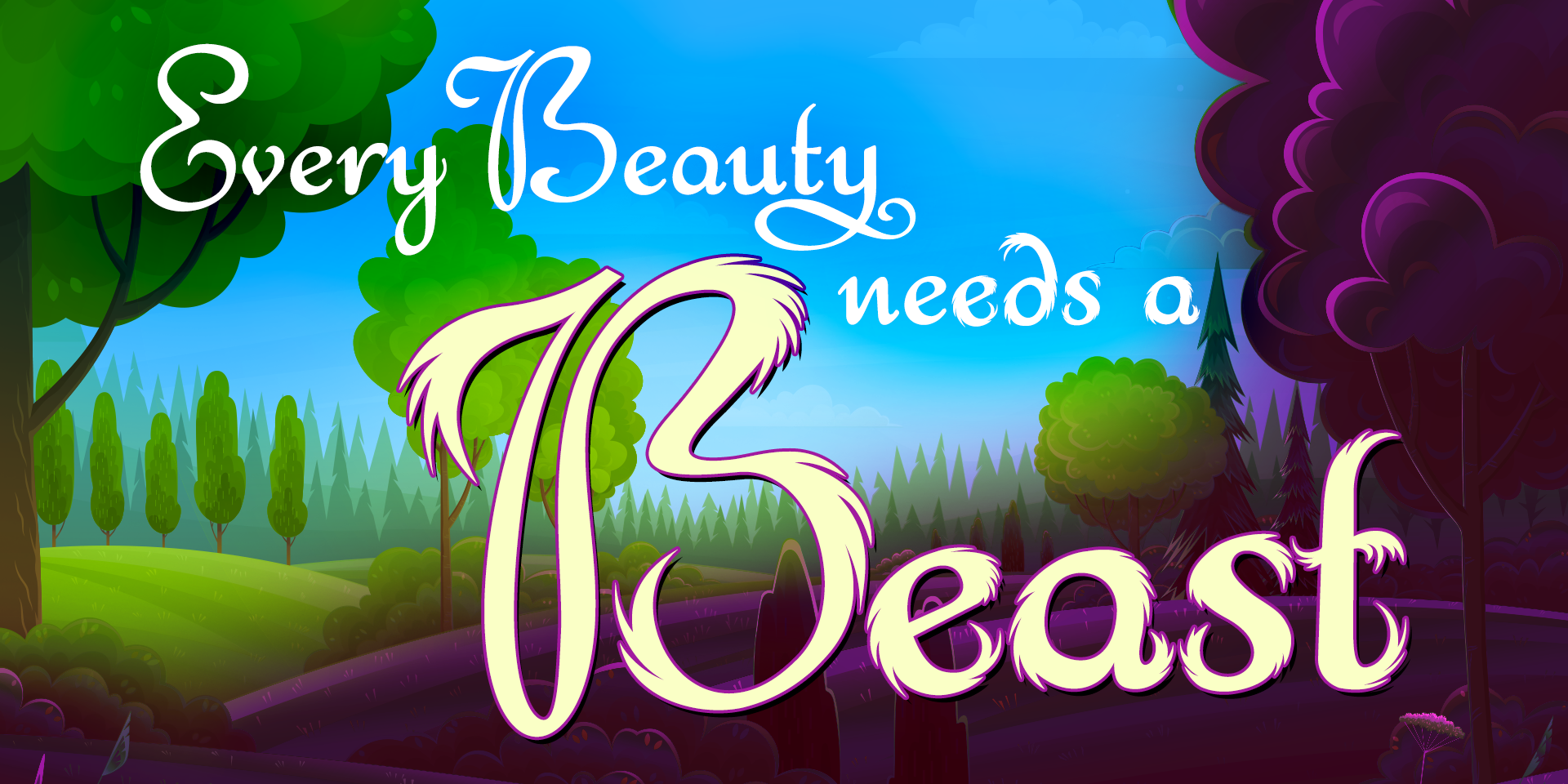
Bex Script Free Download
Bex Script Font Free Download
Bex Script Font is perfect for personal lifestyle branding, boutique fashion labels, handcrafted product packaging, artisanal workshop signage, creative studio portfolios, intimate wedding invitations, personalized stationery design, small business logos, craft market promotions, and authentic handmade brand identities. Its personal script character makes it ideal for projects requiring intimate connection and handcrafted authenticity.
What makes Bex Script Font exciting is its charming embodiment of personal expression and handcrafted intimacy with flowing script letterforms and authentic characteristics that capture the essence of individual creativity and artisanal dedication. The font features natural stroke variations, personal calligraphic touches, and warm character details that create genuine handwritten atmosphere and intimate appeal. Its personal personality brings authenticity and human connection to contemporary designs while maintaining the elegance essential for boutique communications and artisanal presentations. The carefully crafted script elements ensure visual warmth while preserving the distinctive character that embodies the essence of personal craftsmanship and intimate expression excellence.
Bex Script Font comes in multiple personal variations including Regular, Bold, Light, Casual, and Elegant styles. Each family member maintains the distinctive script character while offering comprehensive flexibility for personal typography and boutique brand system development. The complete font family includes stylistic alternates, personal flourishes, and handcrafted decorative elements that provide extensive tools for creating intimate design experiences and authentic personal brand storytelling.
Whether you're developing personal brands, boutique businesses, or handcrafted products, Bex Script Font Free Download provides the intimate elegance needed to communicate with personal audiences and artisanal communities who appreciate handcrafted authenticity and individual expression. The font's personal appeal resonates with crafters, small business owners, and creative individuals seeking authentic personal credibility and handwritten sophistication. Its comprehensive character set includes personal symbols and script marks, making it perfect for creating complete intimate brand systems and memorable personal storytelling across diverse boutique applications and handcrafted design projects that celebrate individual creativity and personal expression excellence.